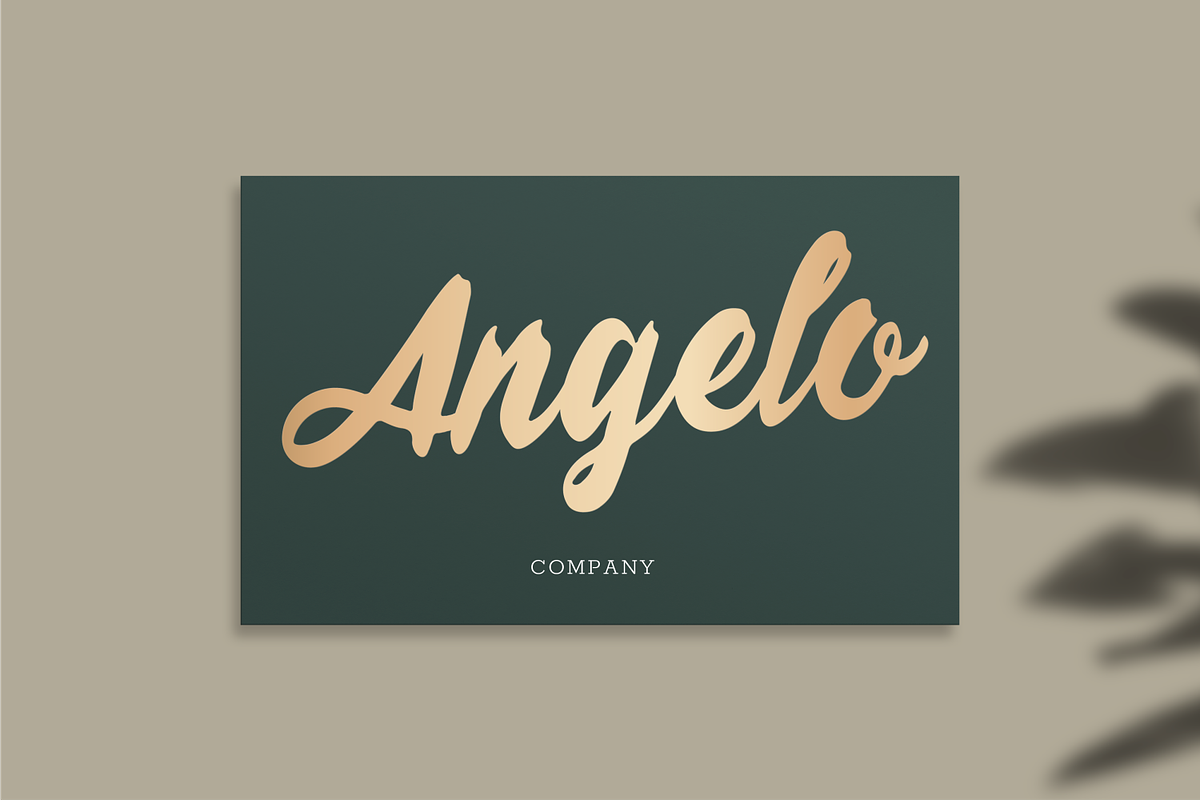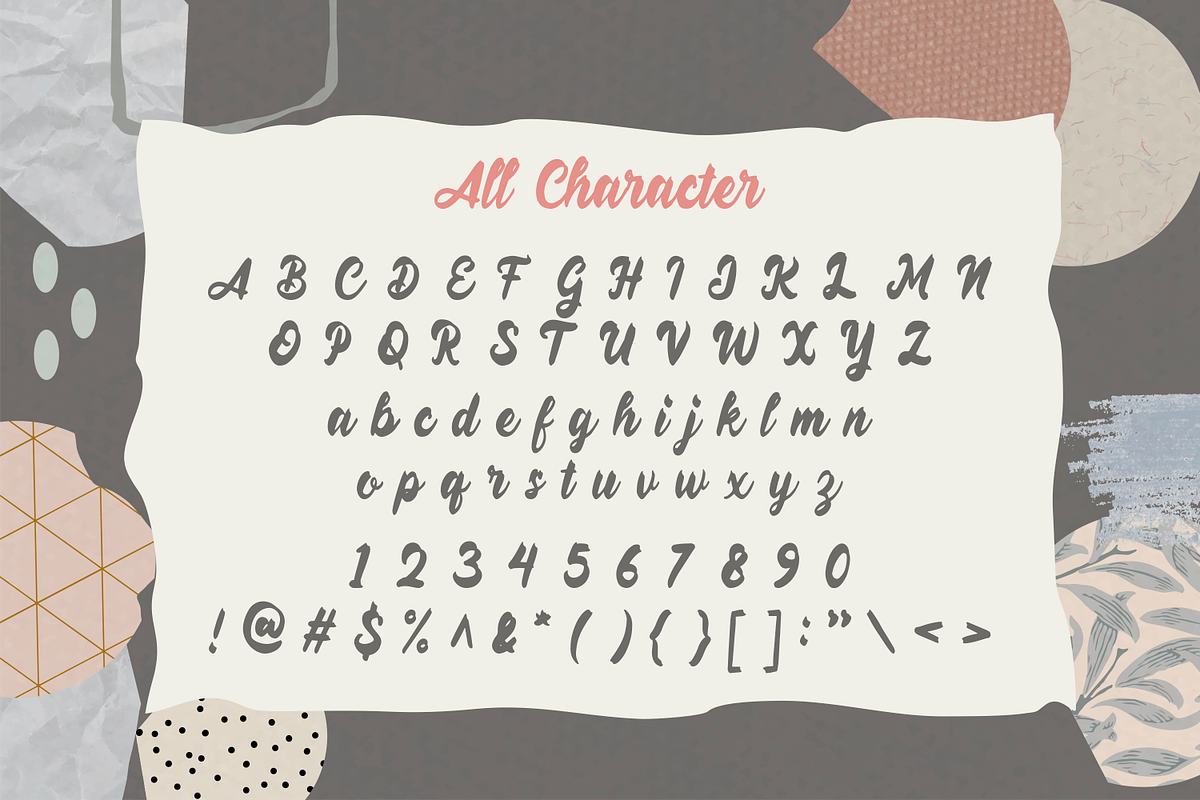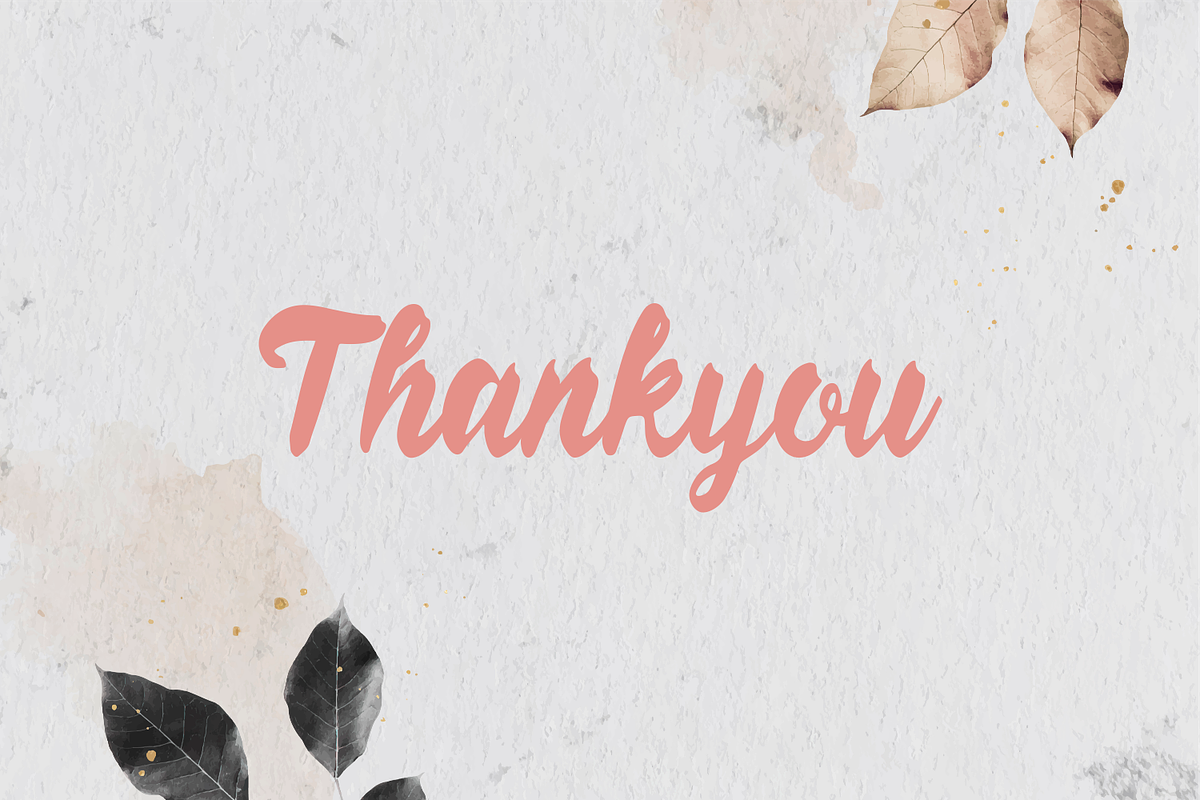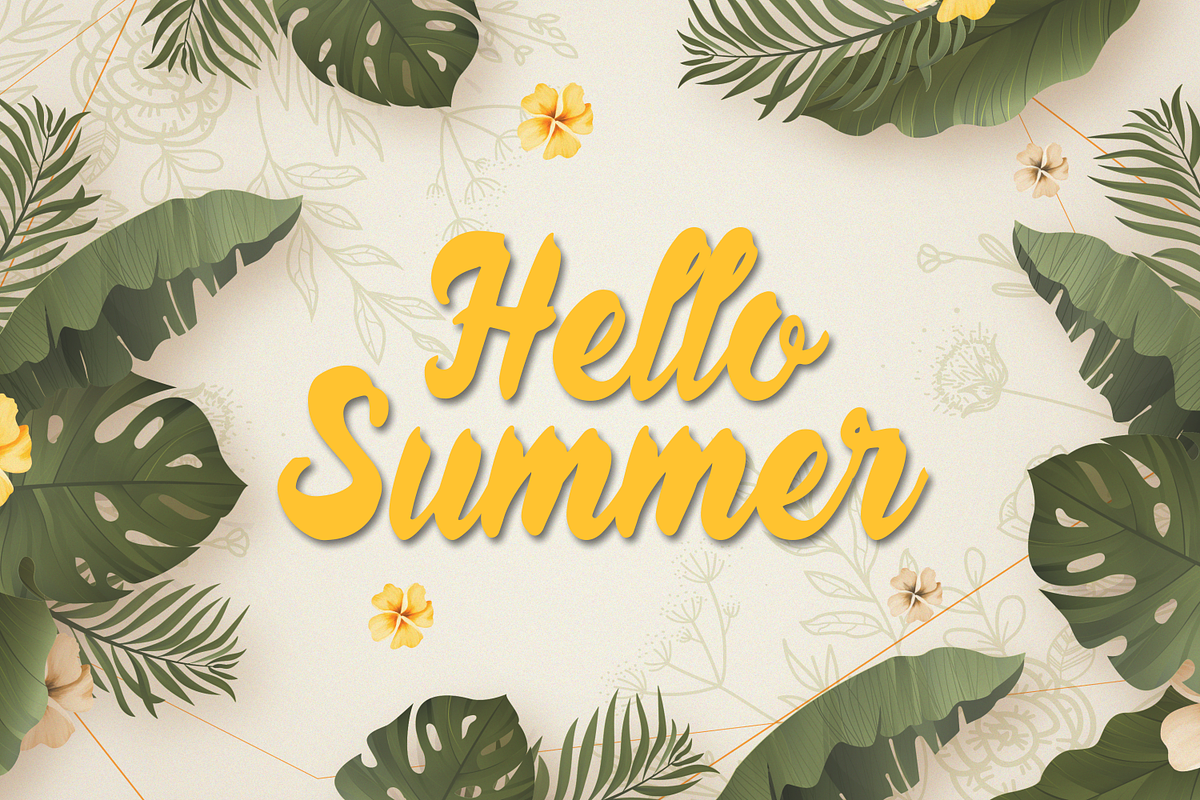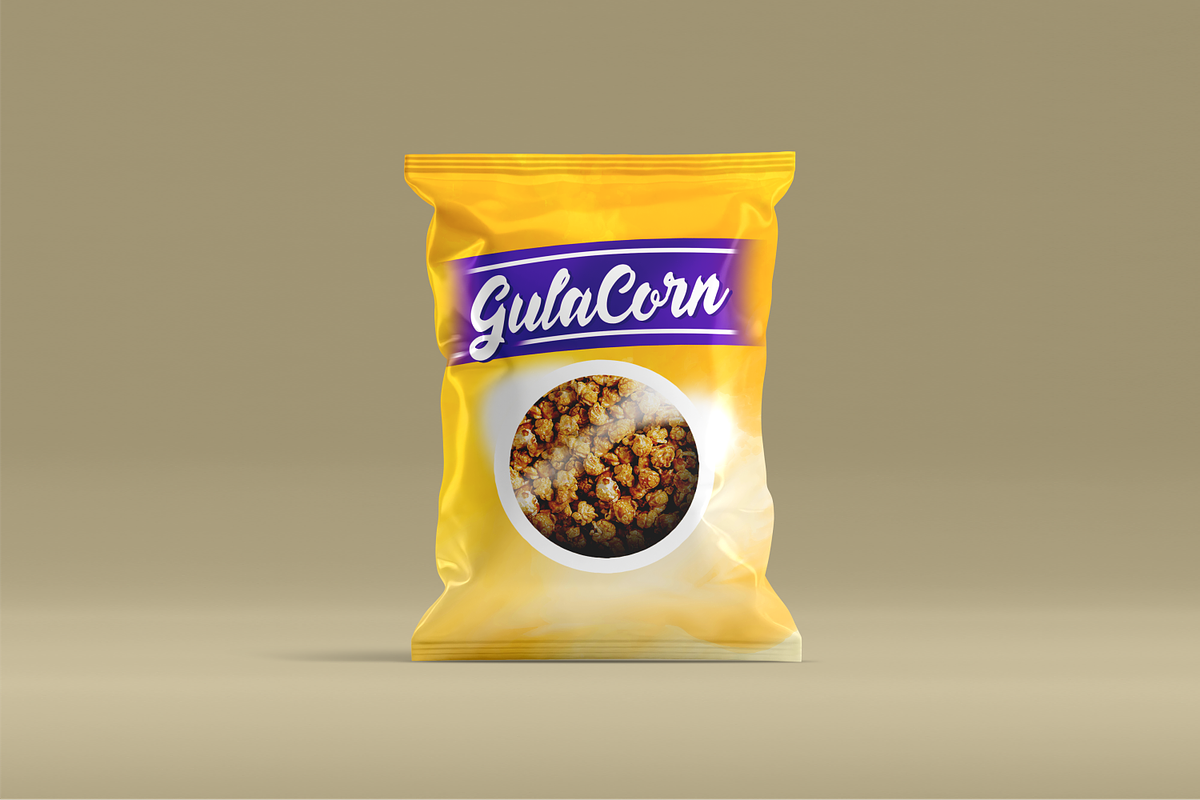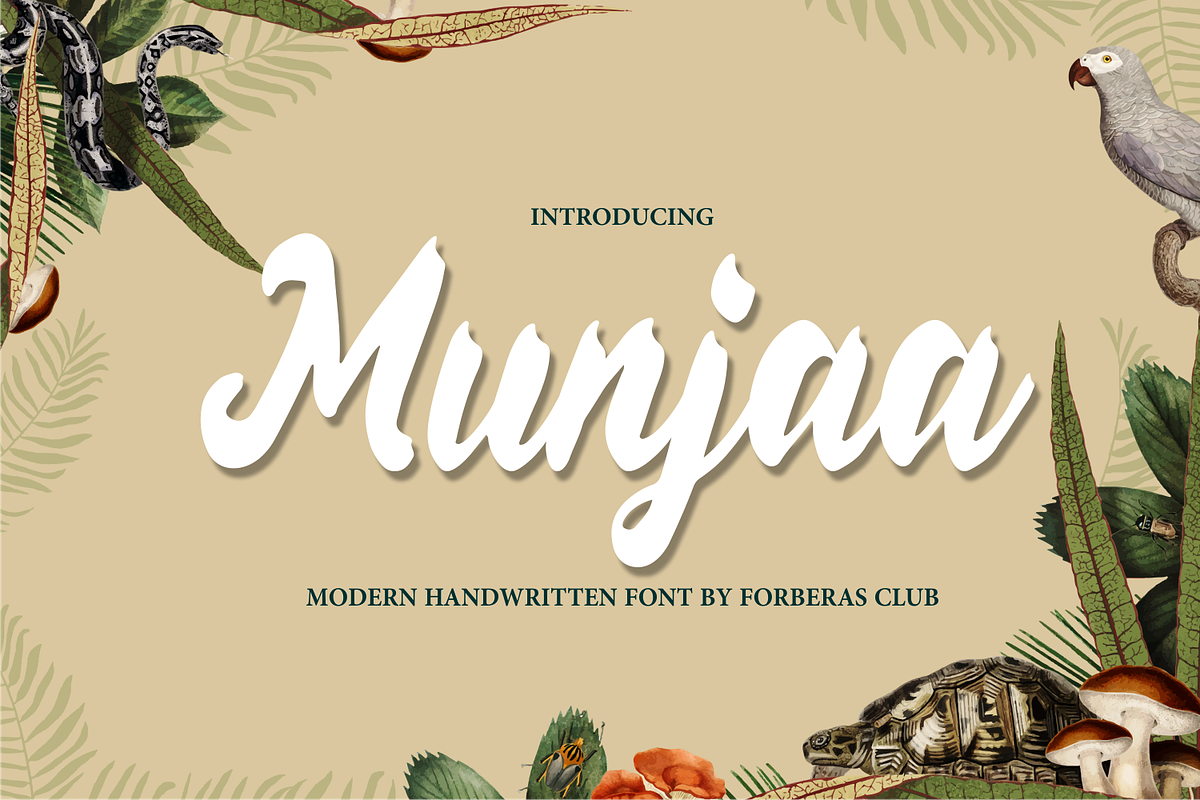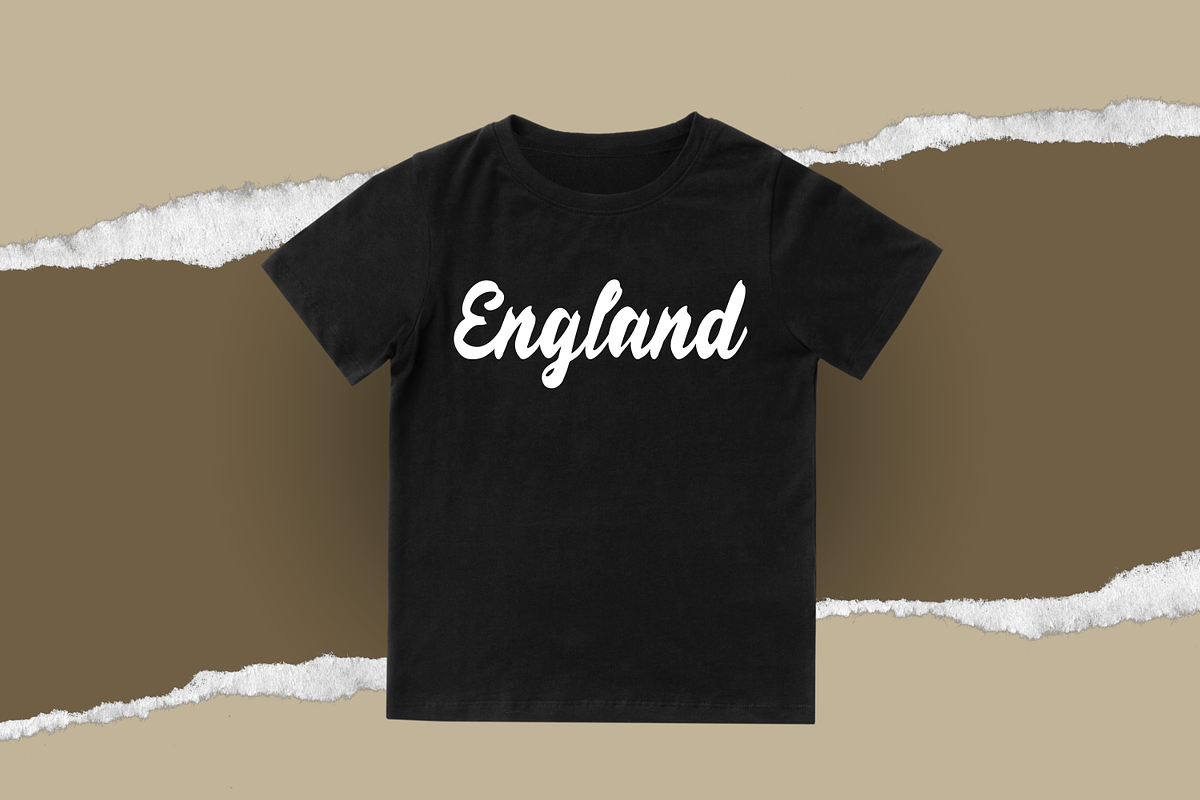
Munjaa | Modern Handwritten
Introducing Munjaa by Forberas
Modern and beautiful handwritten script font! Great for wedding greeting cards, logos, branding materials, Invitation, business cards, quotes, posters, Cricut artwork and more!